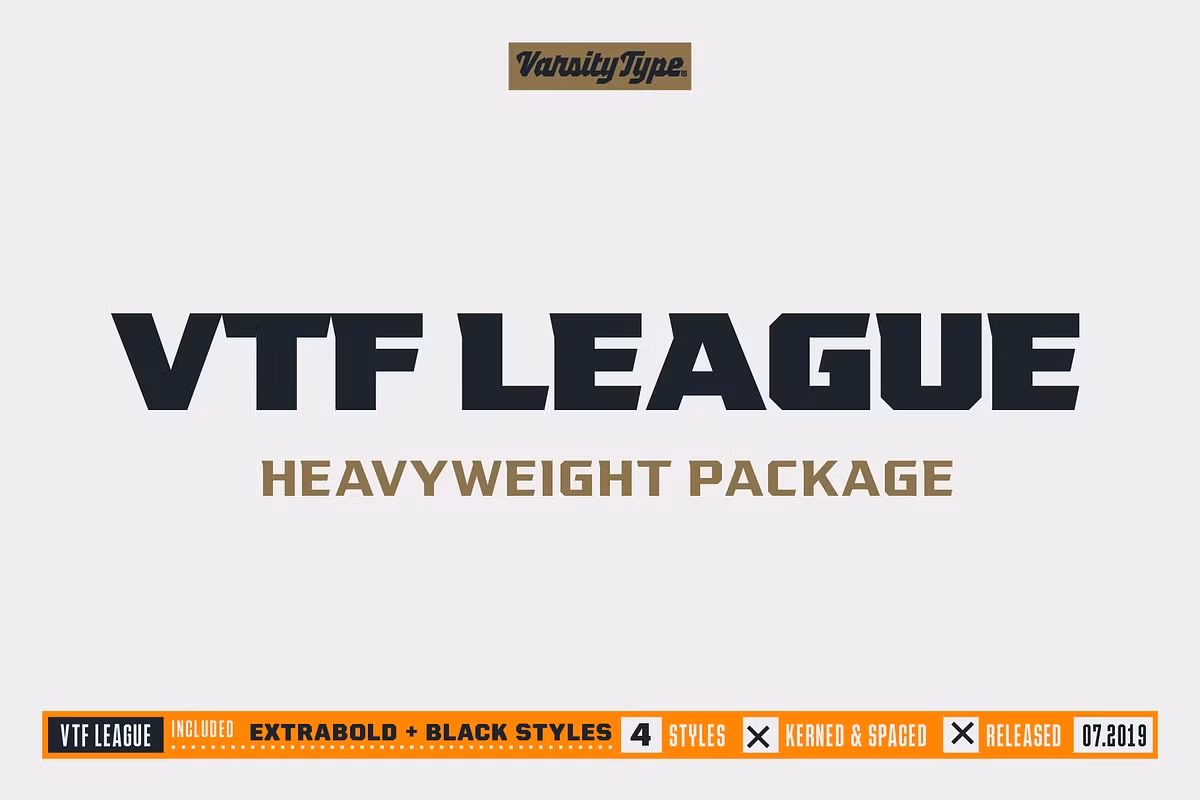
VTF League – Heavyweight Package Font Free Download is a bold, no-nonsense typeface built for impact. With its strong lines, heavyweight structure, and aggressive energy, VTF League is perfect for sports branding, athletic apparel, posters, gaming designs, and bold headlines. It’s designed to dominate the visual space and deliver a message with force.
Crafted for power and presence, VTF League – Heavyweight Package Font Free Download brings a competitive edge to any project. Its solid construction and modern design make it a standout choice for logos, team gear, event graphics, and action-packed visuals. The font’s heavy weight demands attention while maintaining a clean, professional feel.